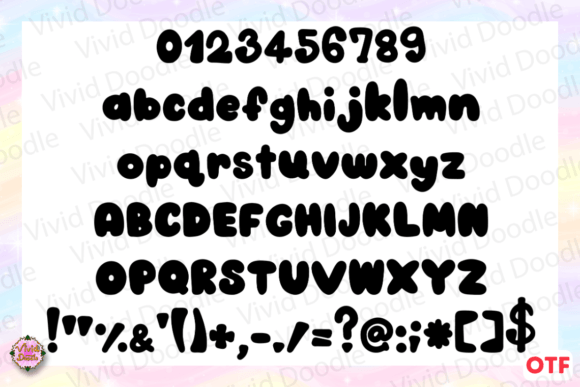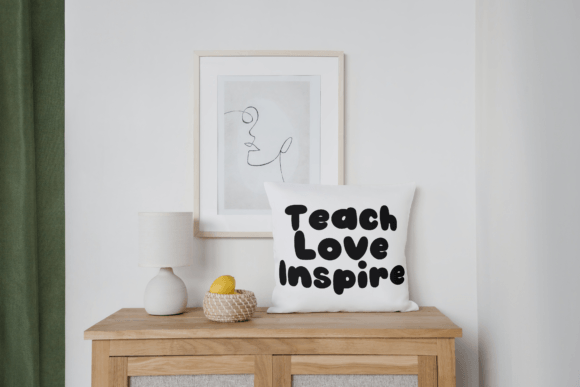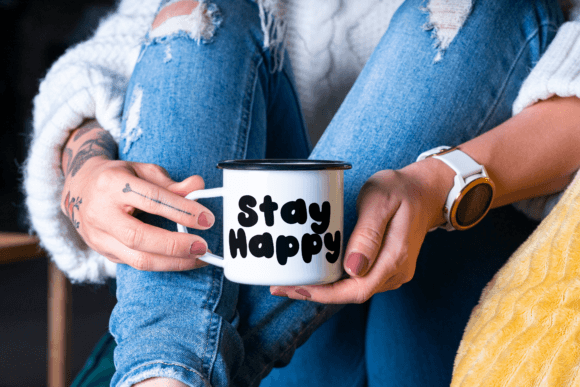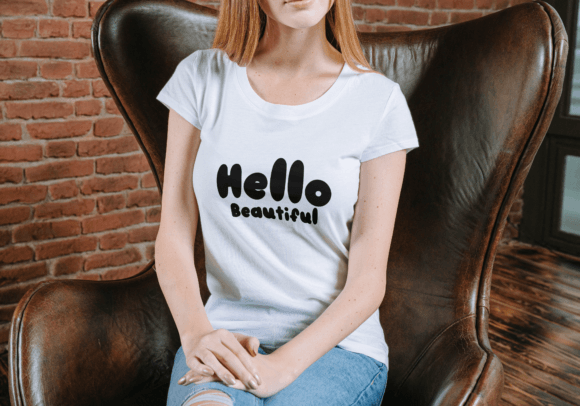
Bubble Maru Font: Unwrap the Festive Cheer in Your Designs
Are you ready to infuse your creations with the warmth and joy of the holiday season? Look no further than the Bubble Maru Font, a unique, hand-lettered font that embodies the festive spirit. This newly crafted font is designed to bring a touch of merriment to your designs, making it perfect for the holiday season and beyond.
What is Bubble Maru Font?
Bubble Maru Font is a specially designed, adaptable, and enchanting font that radiates festive cheer. Its unique, hand-lettered style is thoughtfully crafted to evoke the warm joy of the holiday season, making it an excellent addition to any design project. Whether you’re a designer, crafter, or DIY enthusiast, this font is sure to elevate your creations and leave a lasting impression.
Key Features of Bubble Maru Font
- Unique Hand-Lettered Style: The Bubble Maru Font boasts a distinctive, hand-lettered style that sets it apart from other fonts.
- Festive Cheer: This font is specifically designed to capture the essence of the holiday season, making it perfect for Christmas, Hanukkah, or any other festive celebration.
- Adaptable: The Bubble Maru Font is versatile enough to be used in various design projects, from digital graphics to print materials.
- Enchanting: The font’s playful and whimsical style is sure to captivate your audience and leave a lasting impression.
- Exclusive: As a specially crafted font for the holiday season, the Bubble Maru Font is an exclusive addition to your design arsenal.
Why Choose Bubble Maru Font?
With the Bubble Maru Font, you can add a touch of festive flair to your designs and stand out from the crowd. Here are just a few reasons why you should choose this font:
- Save Time: With a unique and festive font at your disposal, you can save time and effort in creating custom designs from scratch.
- Ease of Use: The Bubble Maru Font is easy to use and integrate into your design projects, making it accessible to designers of all levels.
- Versatility: This font can be used in a wide range of design projects, from holiday cards and invitations to digital graphics and social media posts.
- High-Quality: The Bubble Maru Font is a high-quality font that is designed to deliver exceptional results in your designs.
Design Ideas Using Bubble Maru Font
The Bubble Maru Font is a versatile font that can be used in a wide range of design projects. Here are a few ideas to get you started:
- Holiday Cards and Invitations: Create festive holiday cards and invitations using the Bubble Maru Font.
- Digital Graphics: Design eye-catching digital graphics, such as social media posts and blog headers, using the Bubble Maru Font.
- Print Materials: Use the Bubble Maru Font in print materials, such as flyers, brochures, and posters.
- Crafting and DIY Projects: Incorporate the Bubble Maru Font into your crafting and DIY projects, such as handmade cards and gift tags.
The Bubble Maru Font is a unique and enchanting font that is sure to bring festive cheer to your designs. With its adaptable and exclusive style, this font is perfect for designers, crafters, and DIY enthusiasts looking to elevate their projects. Whether you’re designing holiday cards, digital graphics, or print materials, the Bubble Maru Font is a versatile and high-quality font that is sure to deliver exceptional results.
Get Ready to Experience the Merriment of the Season